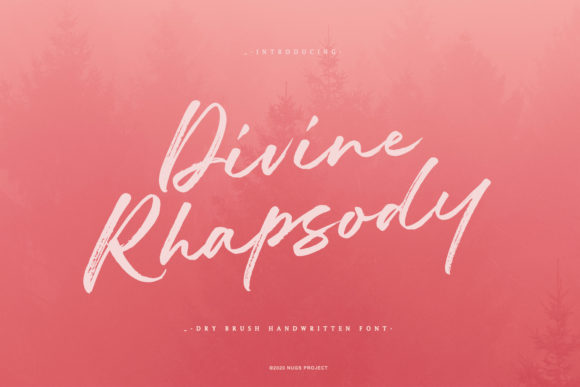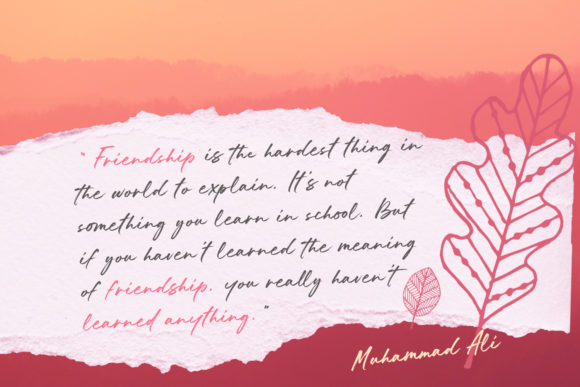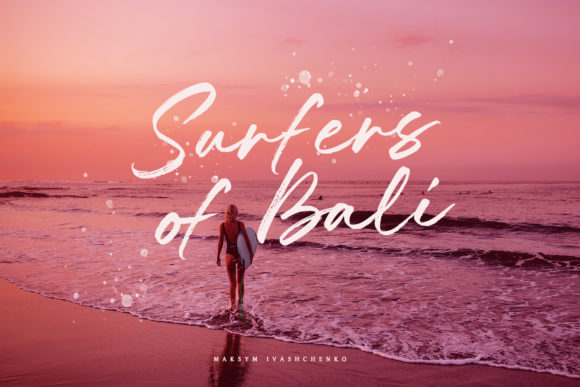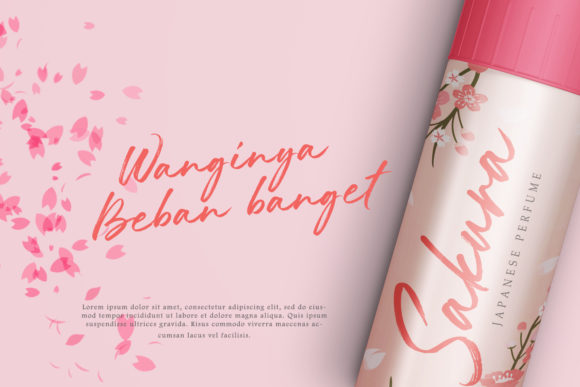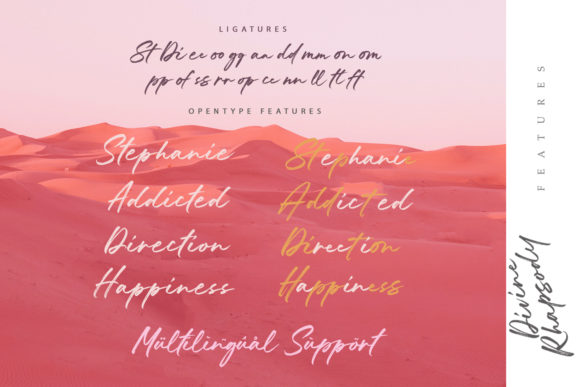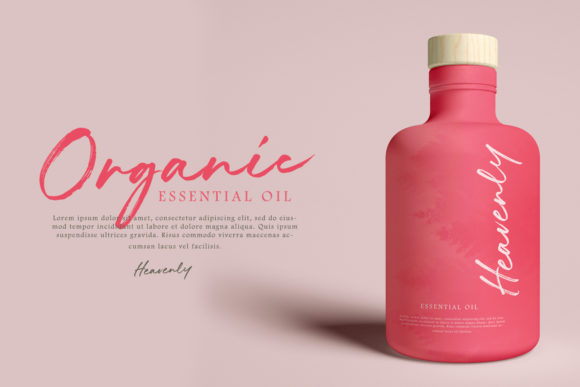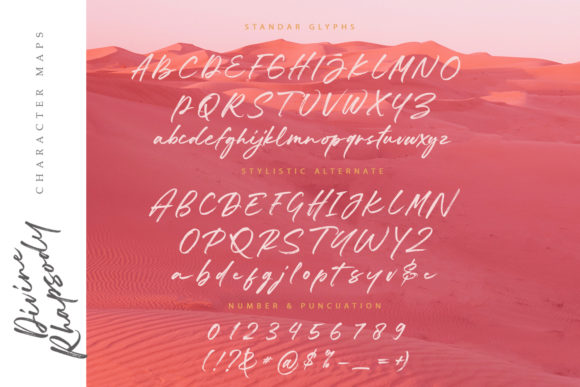
Divine Rhapsody Font
About Divine Rhapsody Font
Divine Rhapsody is a beautiful, brushed handwritten font. It can be used for various purposes such as logos, wedding invitations, headings, t-shirts, letterhead, signage, labels, news, posters, badges and so much more.